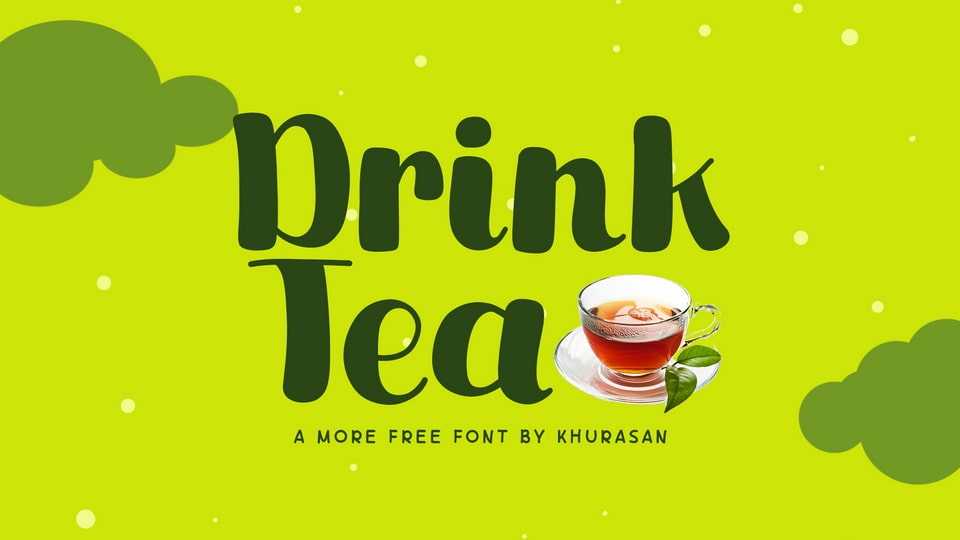
Download Drink Tea font, a cute hand-painted typeface that captures the endearing charm of brush strokes on canvas. Crafted with a whimsical touch, Drink Tea font is perfect for projects that seek a delightful and handcrafted aesthetic.